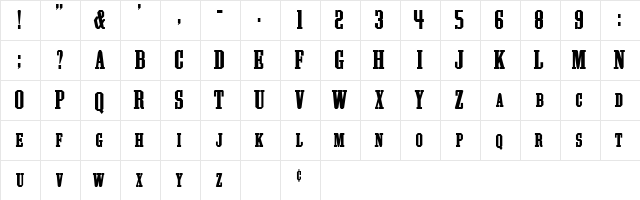
Athletic Supporter Regular
Design Context for Athletic Supporter Typeface
Athletic Supporter brings high-energy athletic personality to the page — its confident, muscular forms are built for impact.
A natural choice for gym brands, fantasy sports, jersey lettering, and action-driven headlines.
Pro Tip: Use Athletic Supporter in all-caps headlines where its athletic energy can fully express itself. Pair with a solid, simple sans for supporting text.